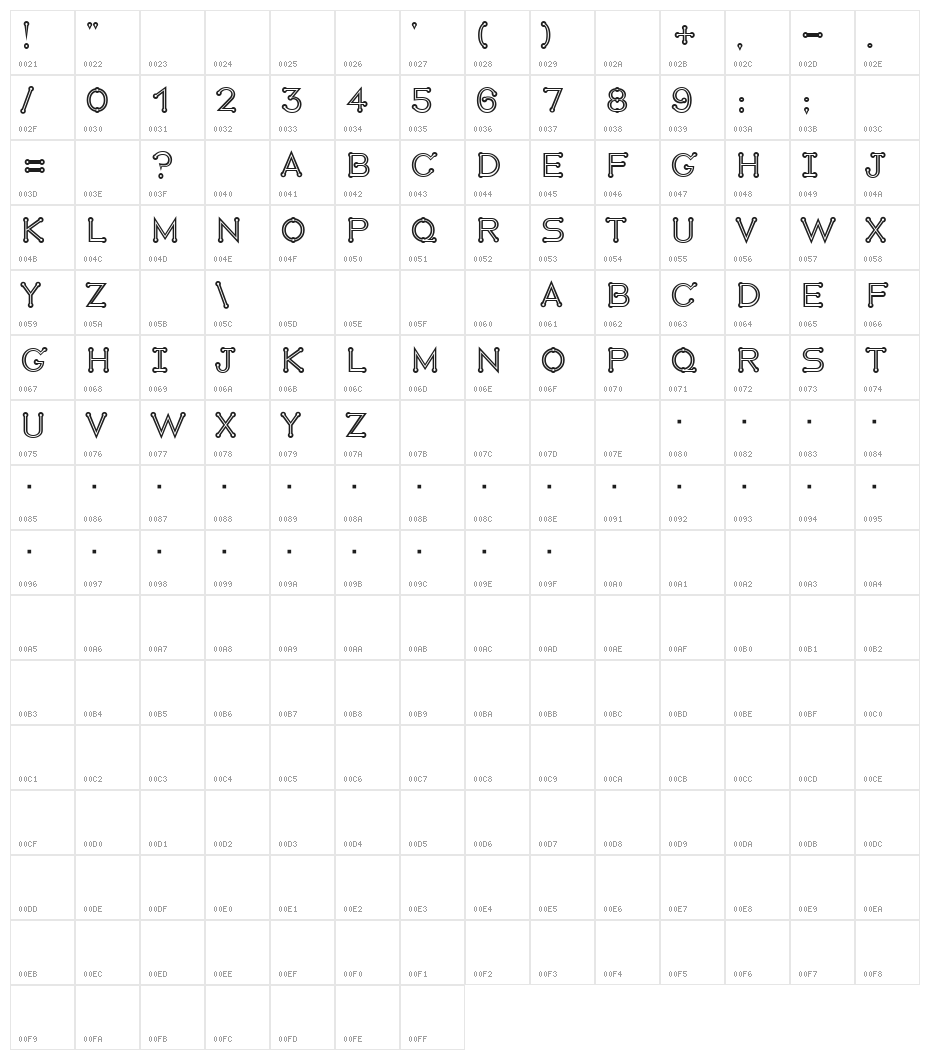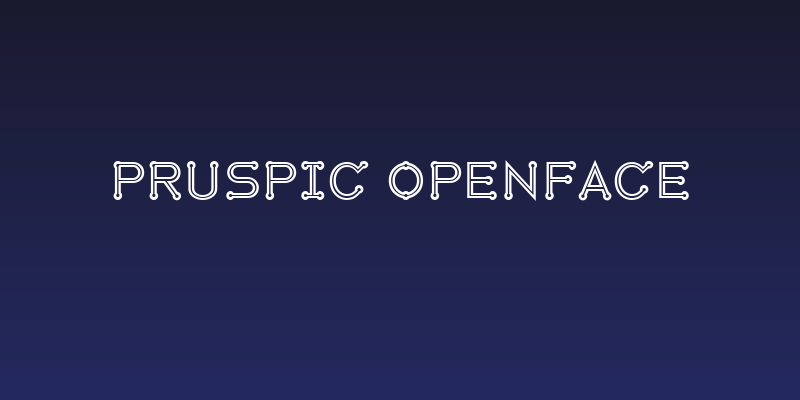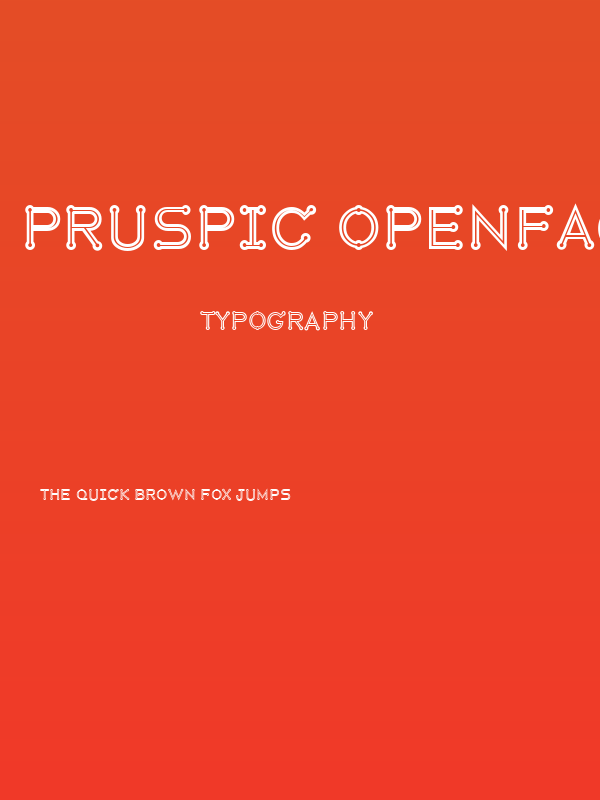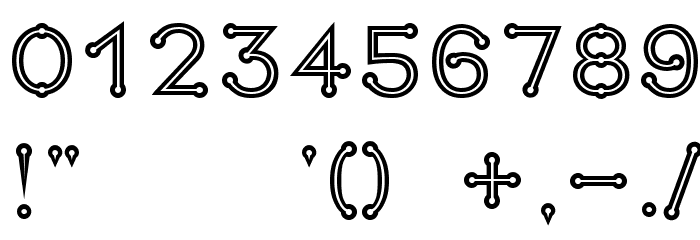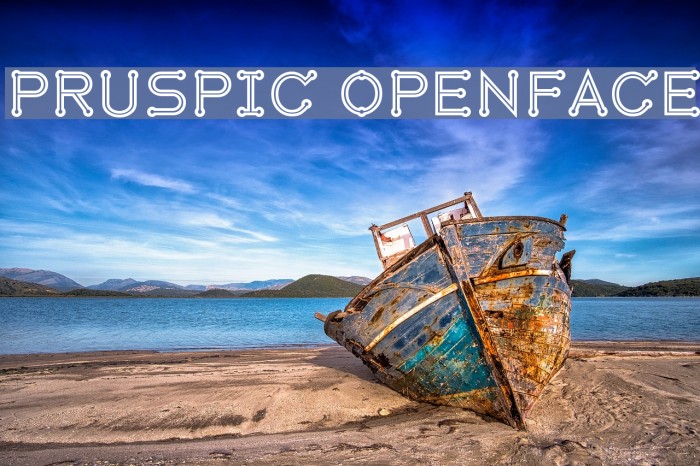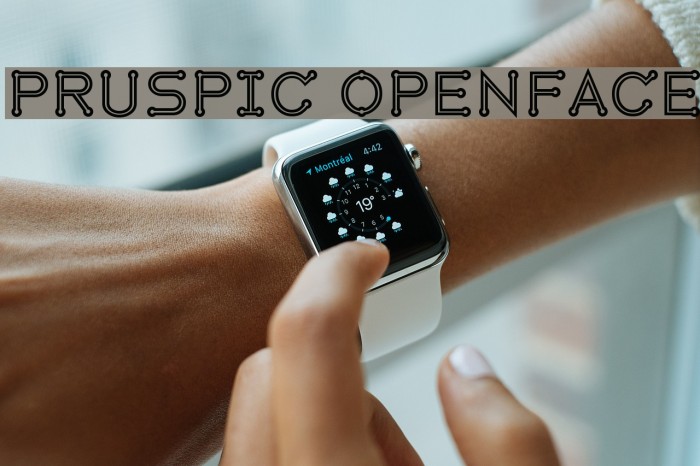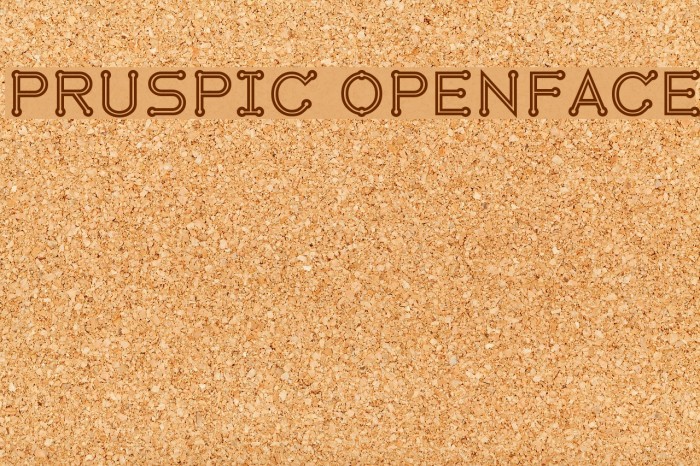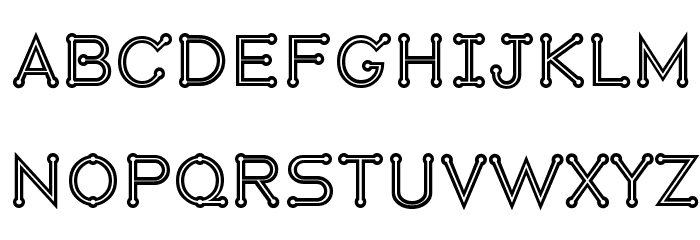
Pruspic Openface Font
Pruspic Openface Description
This font features a unique and playful design with an outline style that gives it a modern and decorative appearance. The characters are formed with a consistent stroke width, creating a cohesive and uniform look. The rounded edges and open spaces within each letter add a sense of openness and creativity. The font includes both uppercase and lowercase letters, numbers, and a variety of special characters, making it versatile for different design needs. Its distinct style makes it stand out, suitable for projects that require a bold and artistic touch.
| Use Case | Logos, Posters, Creative Branding |
| Proposed Projects | Ideal for creative projects such as posters, logos, and branding materials where a unique and artistic font is desired. |